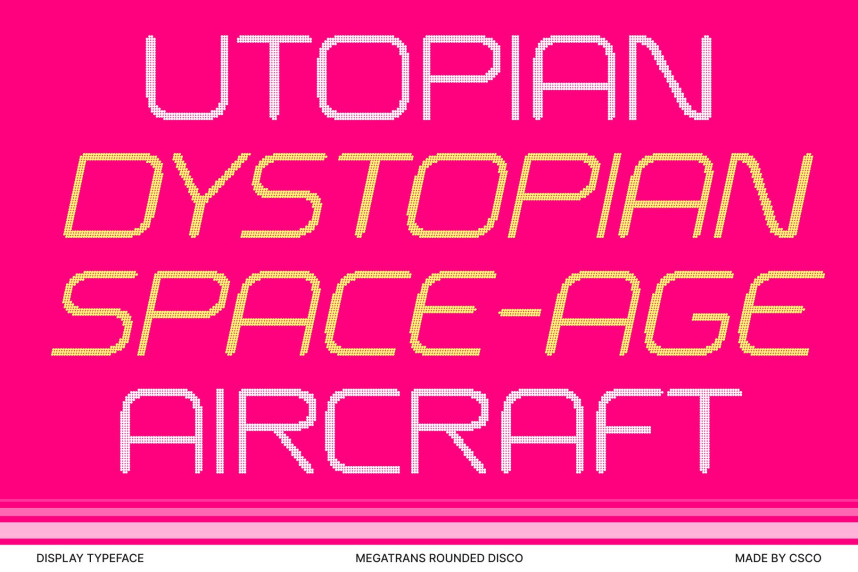
Megatrans Rounded Disco Font
Megatrans Rounded Disco Font – Futuristic Techno Sans Serif with Disco Brilliance Futuristic Energy with a Digital Edge. This is a futuristic techno sans serif font designed to deliver bold digital energy in every letter. Its rounded geometric structure creates a smooth, streamlined appearance, while the techno-inspired shapes add a strong sense of innovation, precision, and forward-thinking design. This is the kind of font that instantly communicates modernity, speed, and high-tech aesthetics.